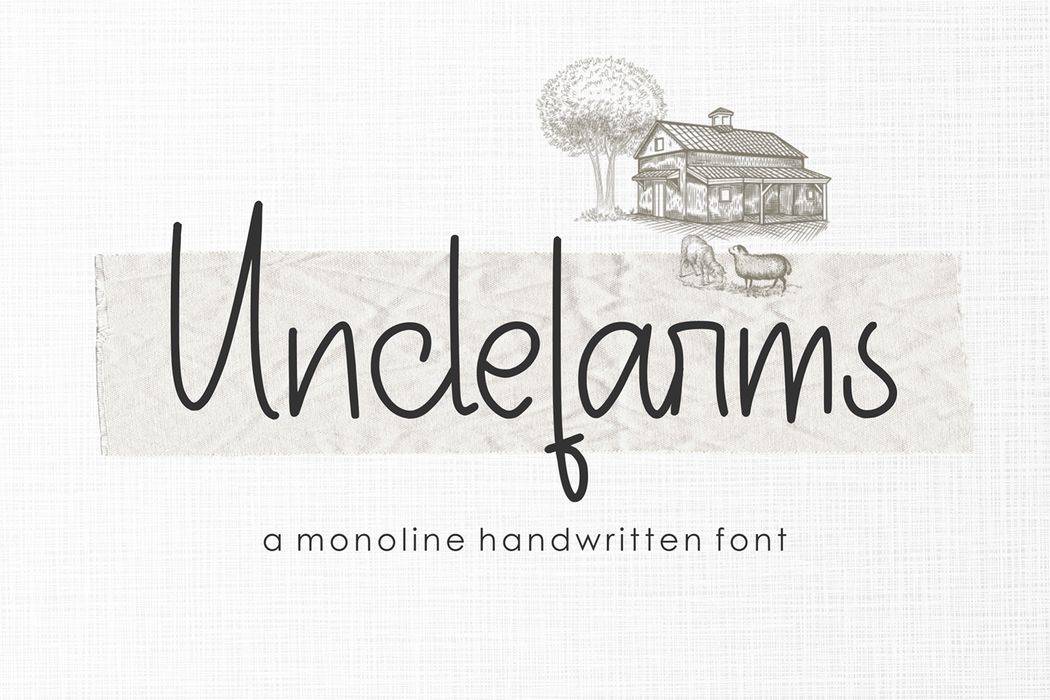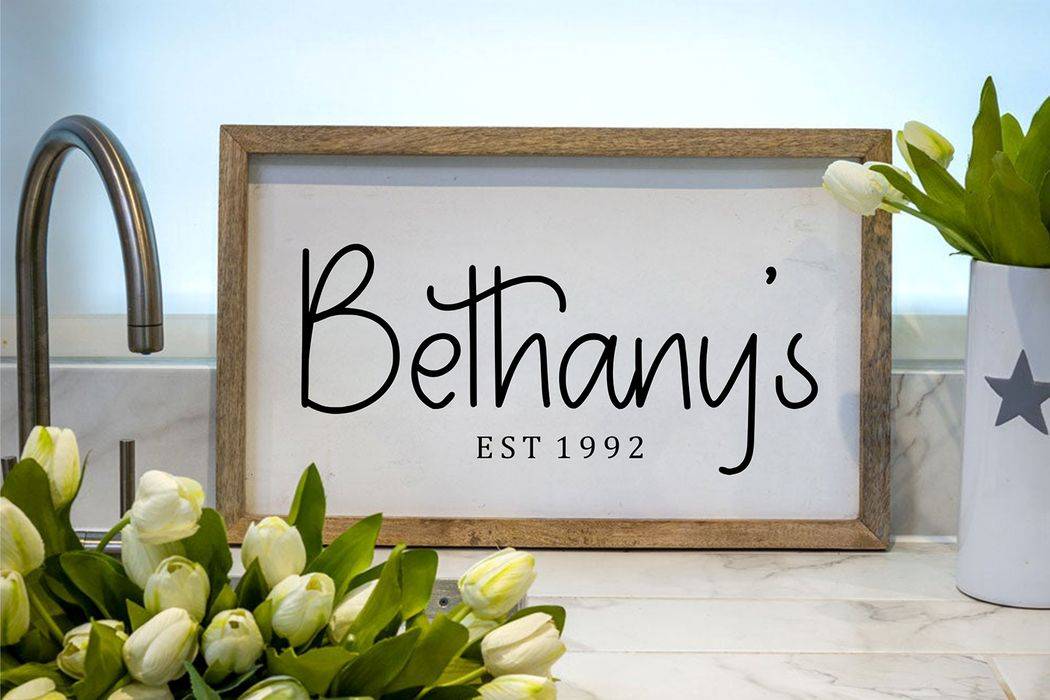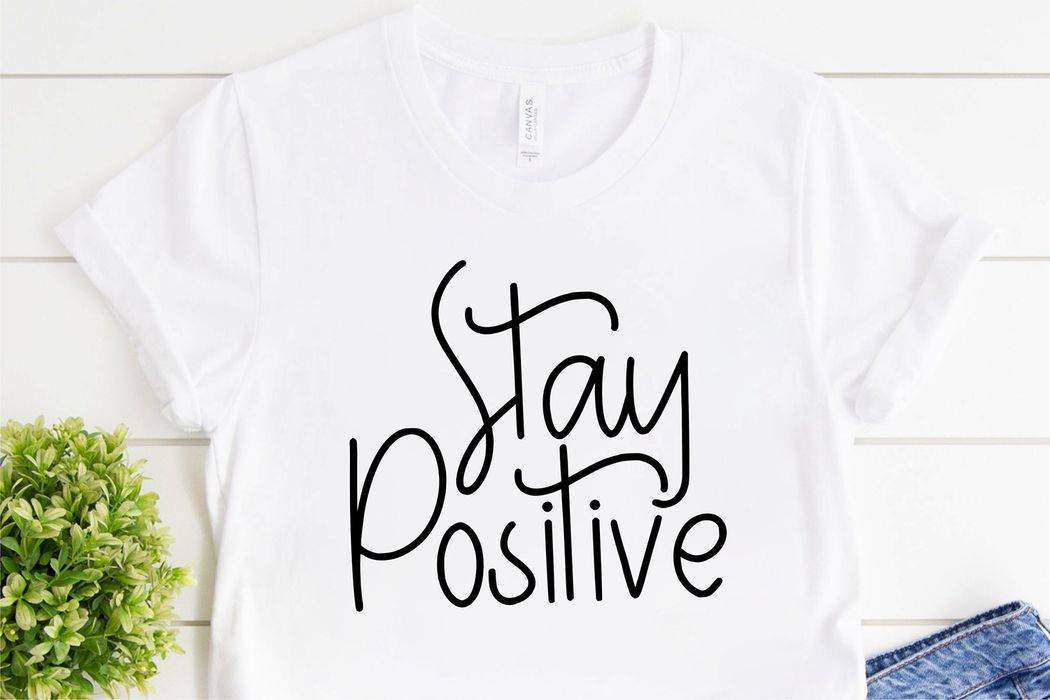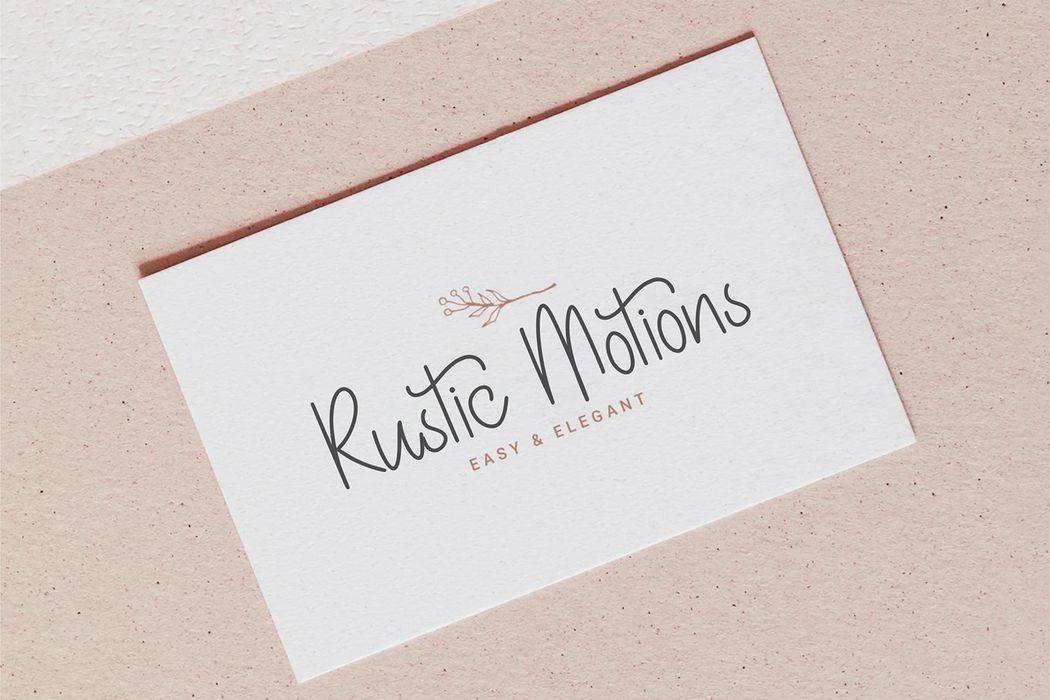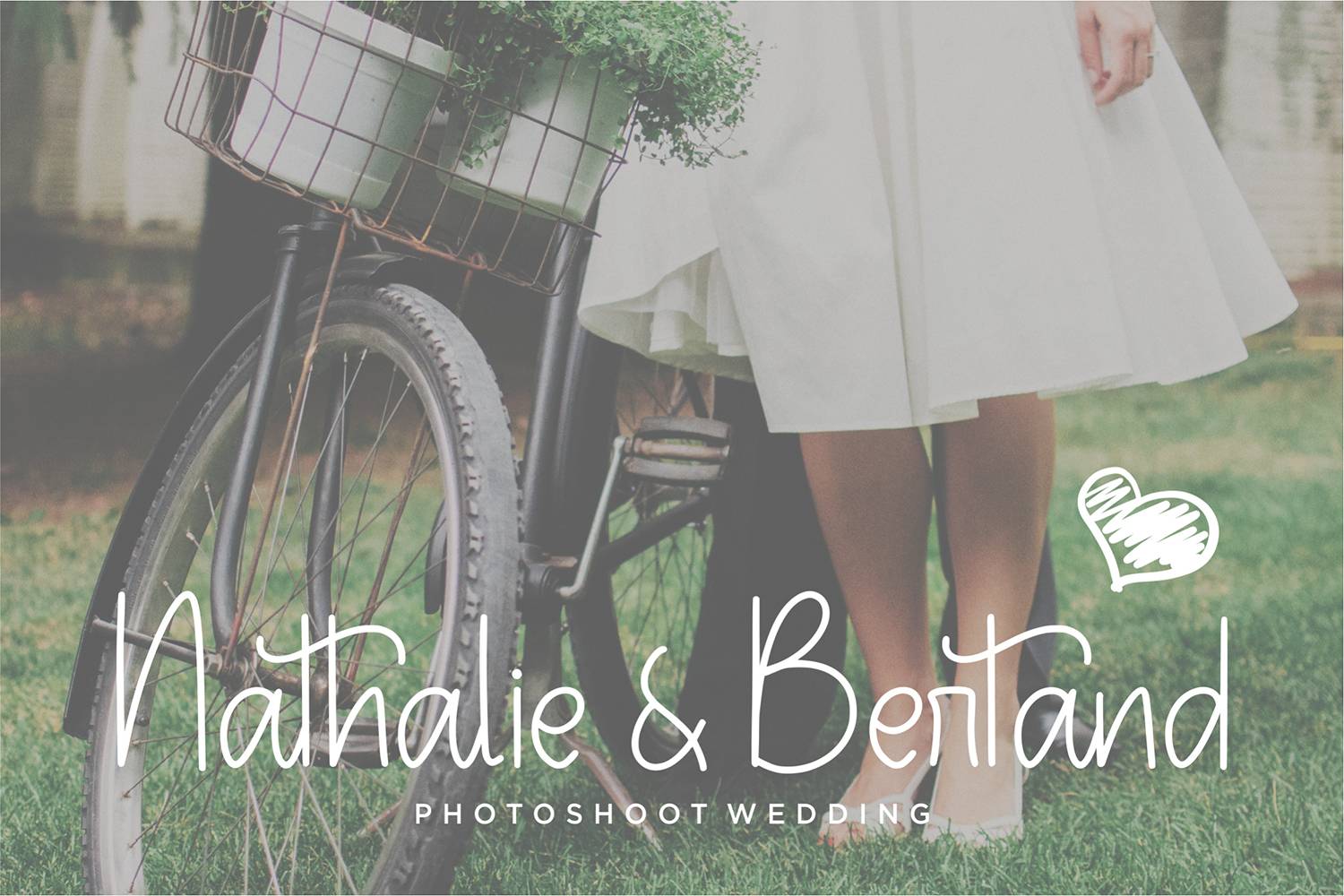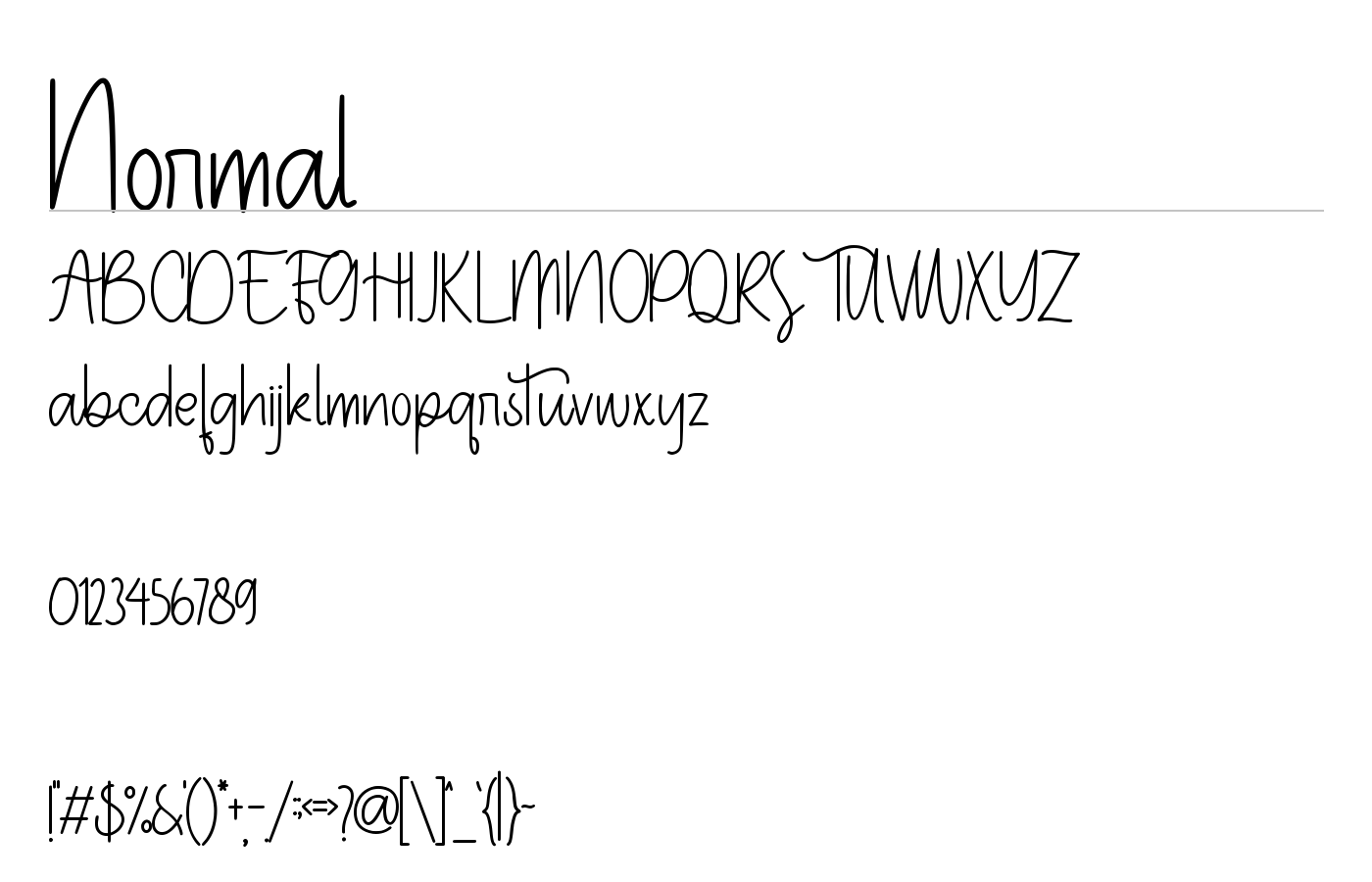
Unclefarms is a delicate, handwritten sans serif font with a tall, narrow design and playful, irregular letterforms. Its light weight and whimsical curves give it a casual and friendly feel, making it ideal for creative projects, informal branding, and invitations where a personal touch is desired. This font works best in headlines and short texts, adding charm and personality without overwhelming the design.
Unclefarms Font
About Unclefarms Font